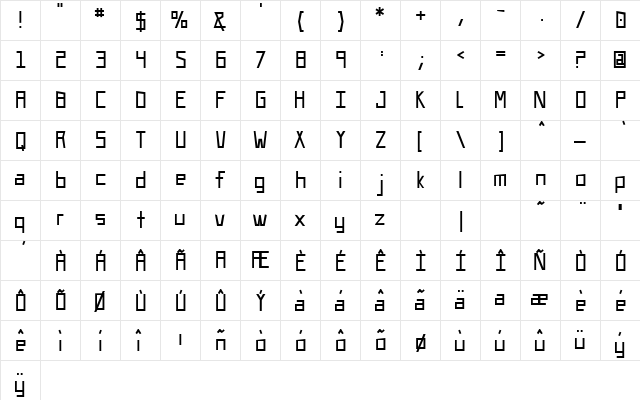
UA Squared Regular
Design Context for UA Squared Typeface
UA Squared offers clean, dependable letterforms without strong stylistic allegiance, making it a practical choice for designers who need flexibility.
Pro Tip: Use UA Squared in both headline and body roles to test its range before committing to a single application.